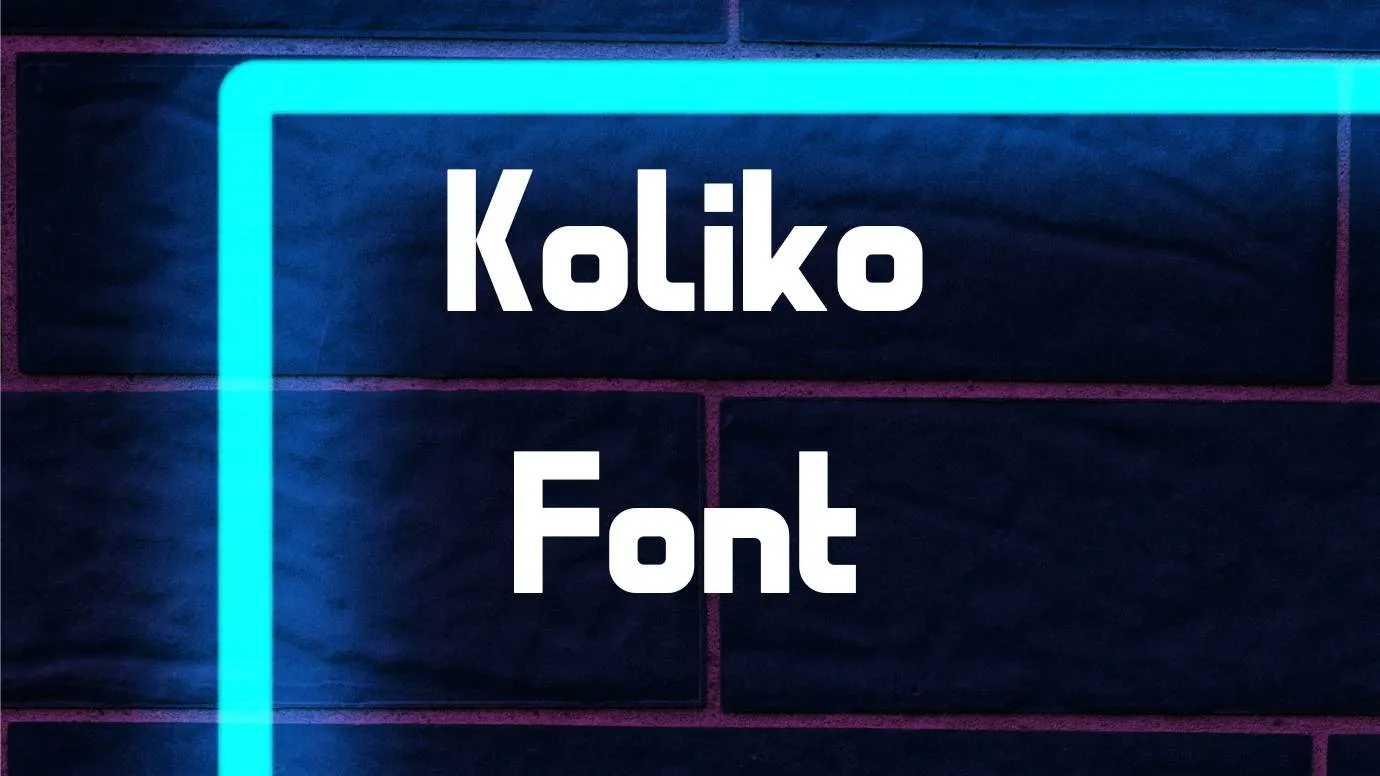
Kolikö Font Family is a display-type font that has a unique and attractive look. This modern font was designed by a famous designer known as Alex Frukta. It has three unique styles with bold and light-bold weights.
This typeface is great for making pairing with nova display font and you can create several unique designs. Its modern texture is also great for official web designers and graphic designers.
Kolikö Font